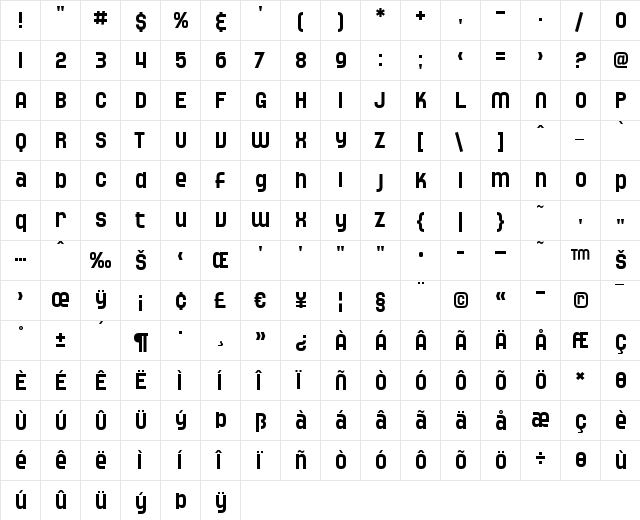
SF Speedwaystar Regular
Design Context for SF Speedwaystar Typeface
SF Speedwaystar offers clean, dependable letterforms without strong stylistic allegiance, making it a practical choice for designers who need flexibility.